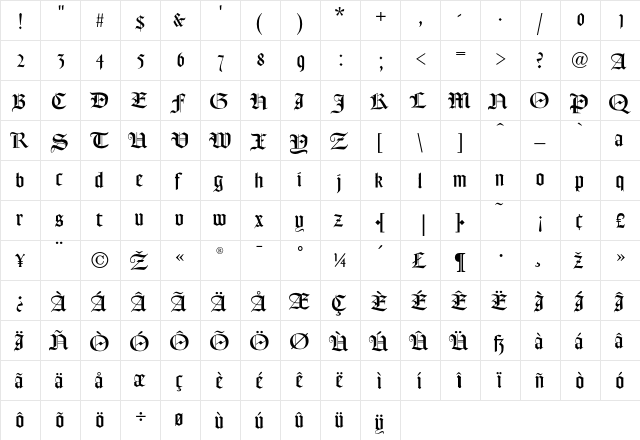
FrederickText Regular
Design Context for FrederickText Typeface
FrederickText is a composed and adaptable typeface that performs quietly and consistently across a wide range of design contexts.